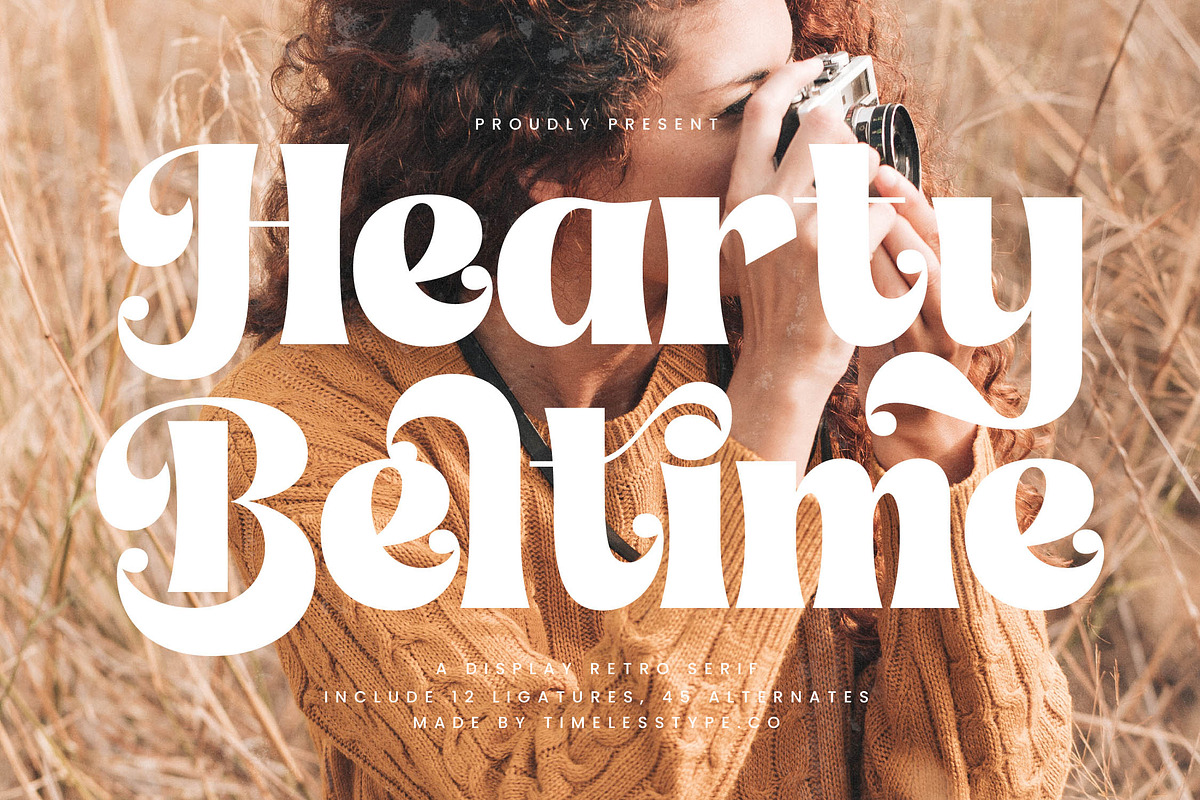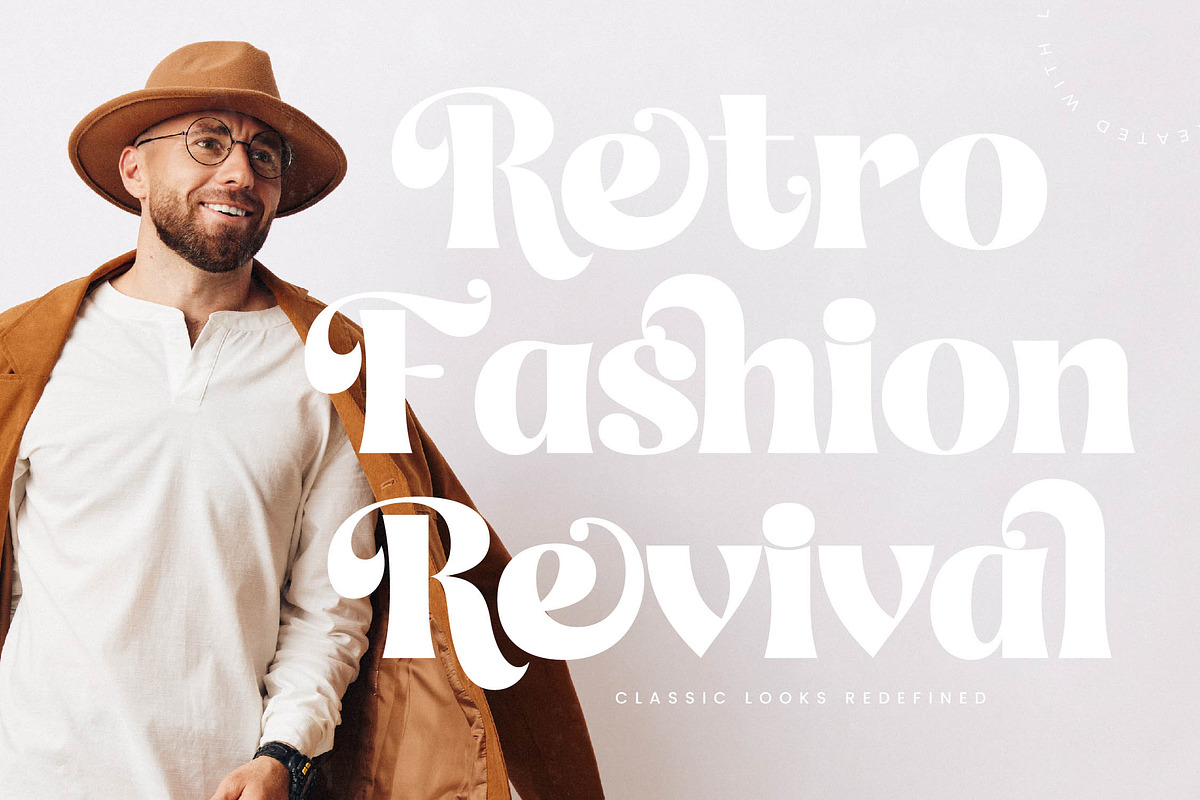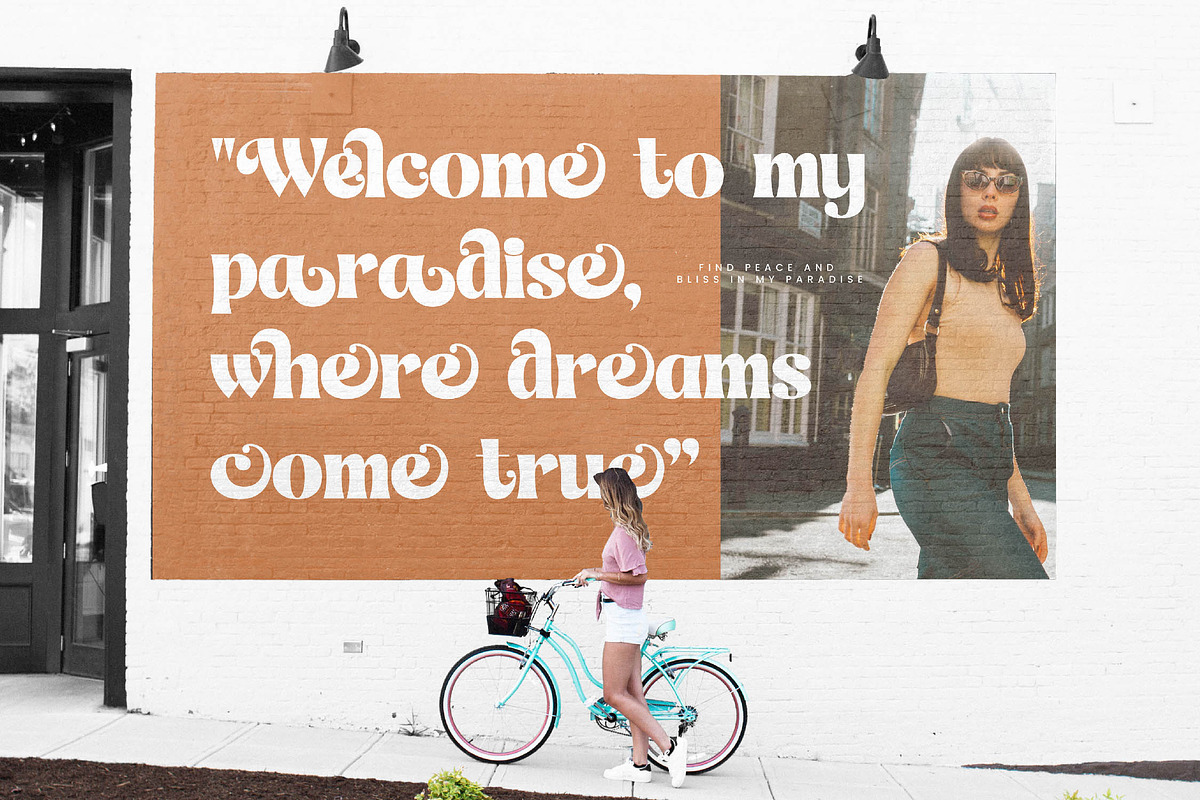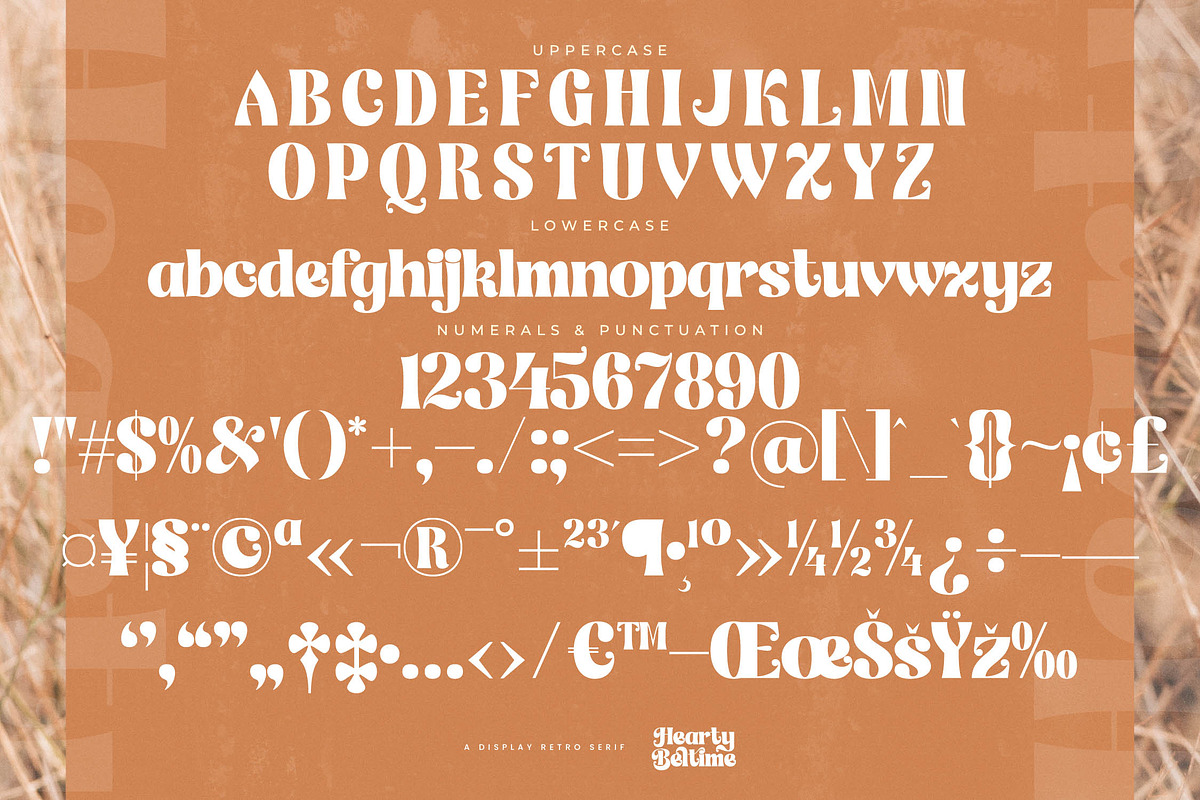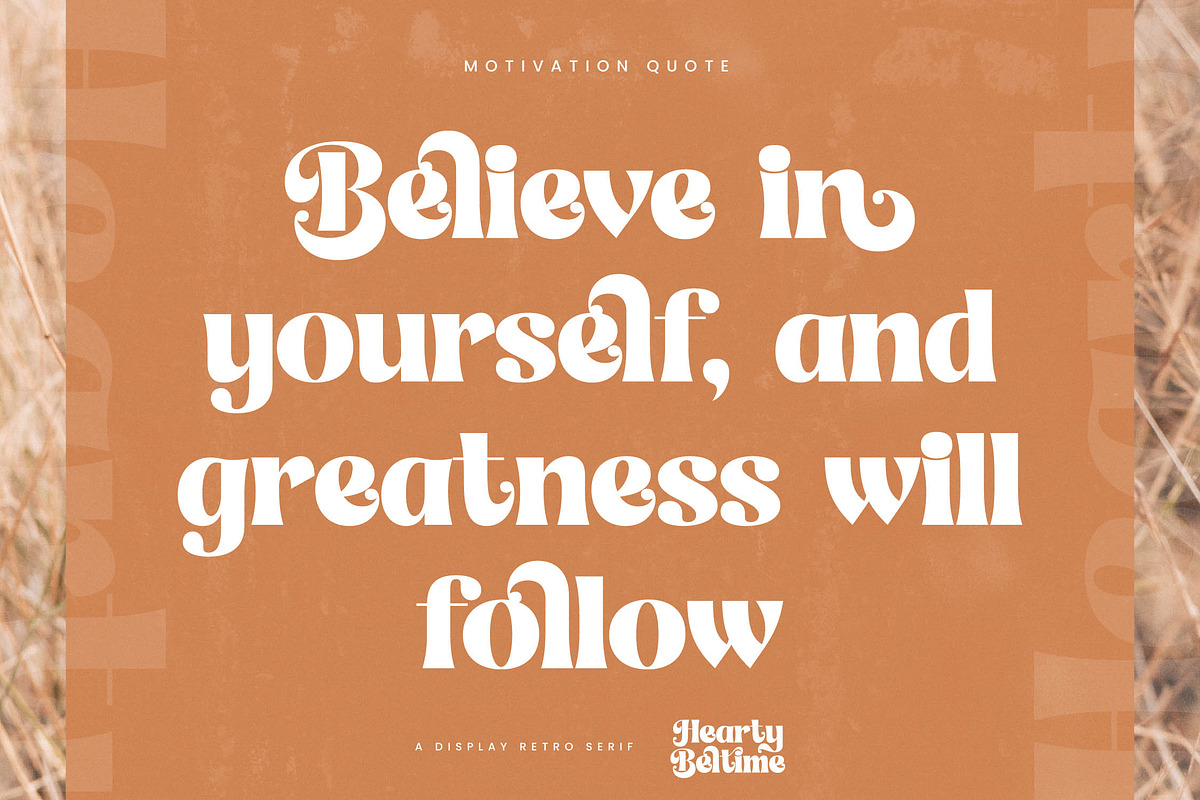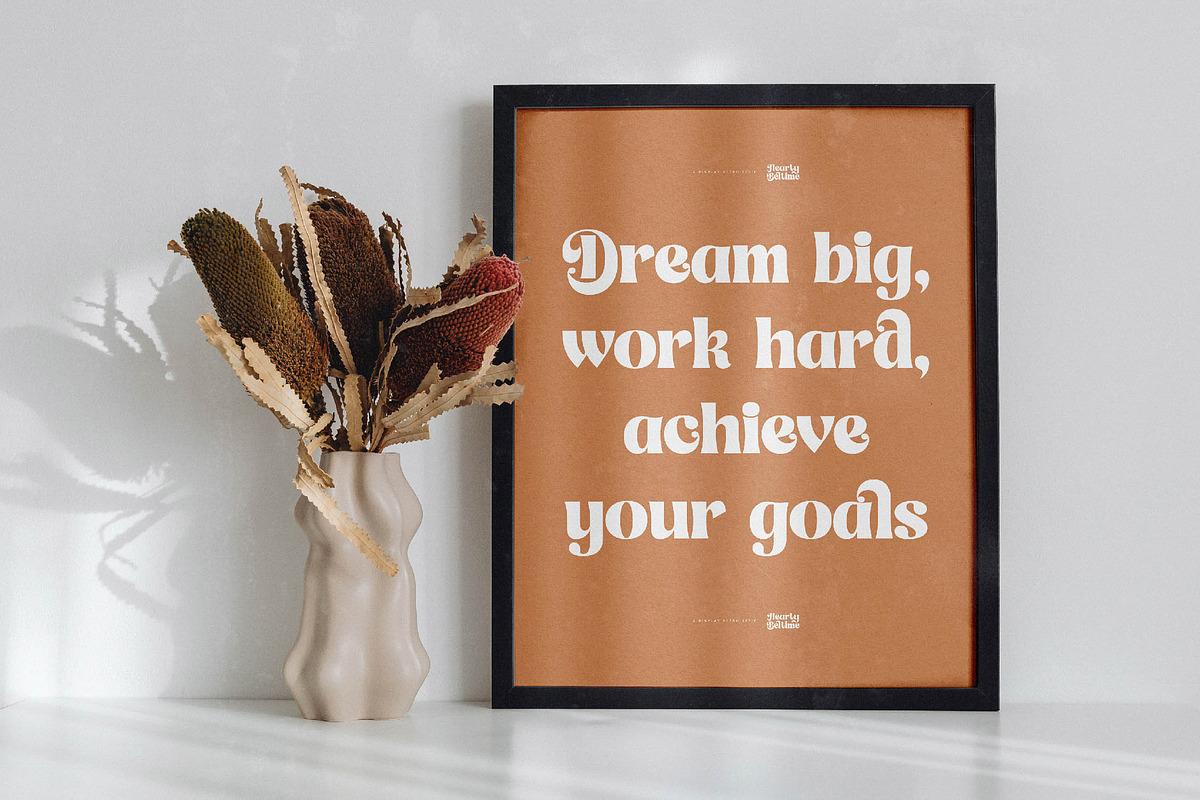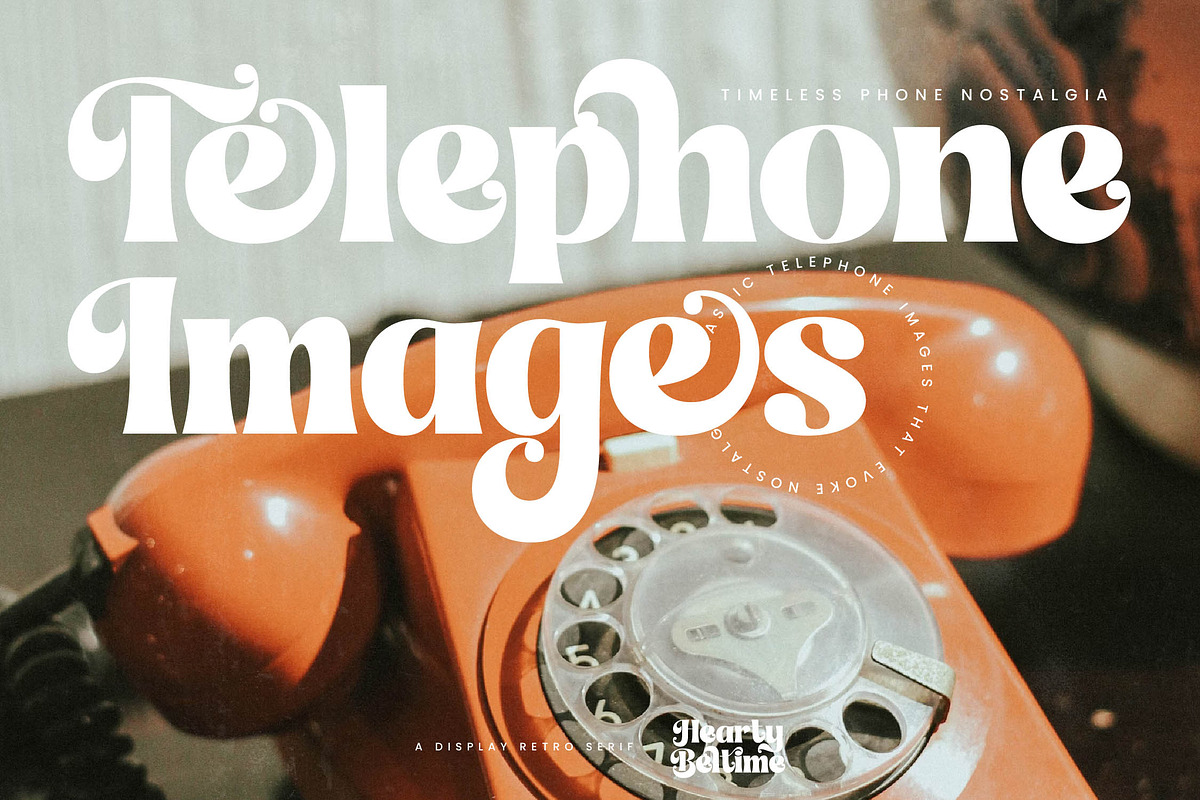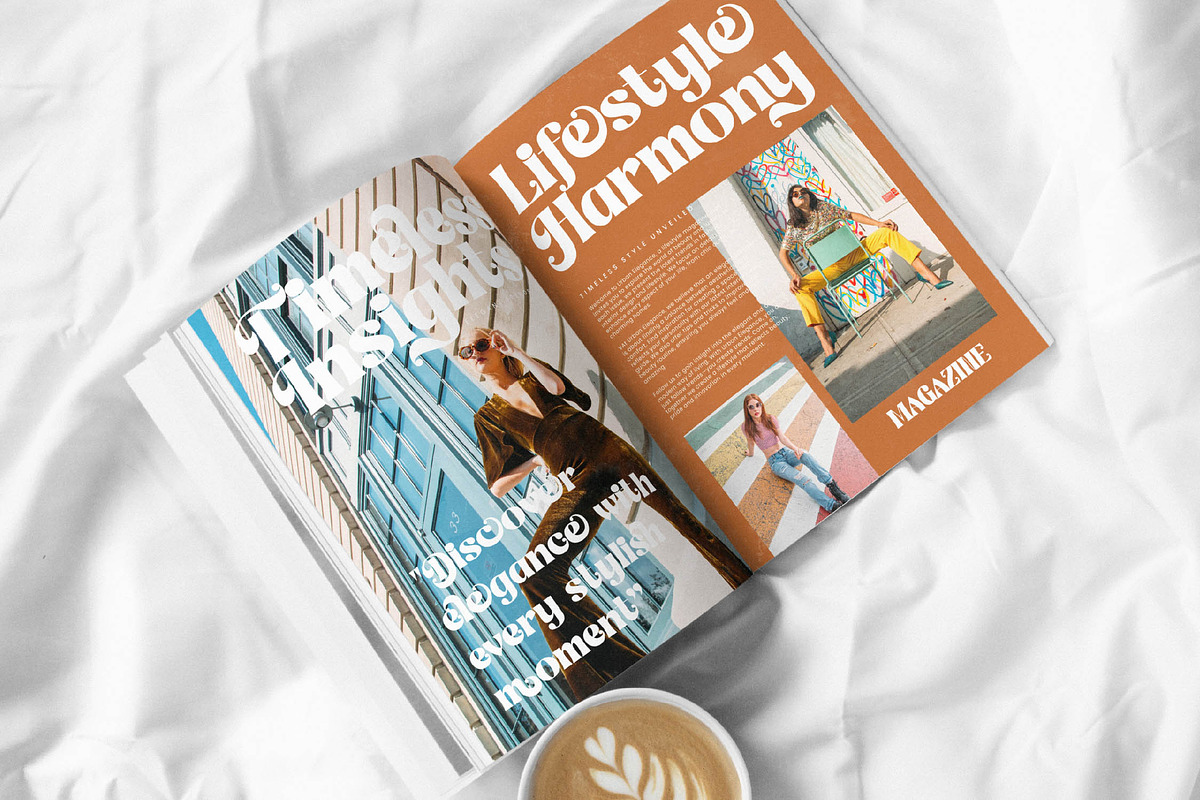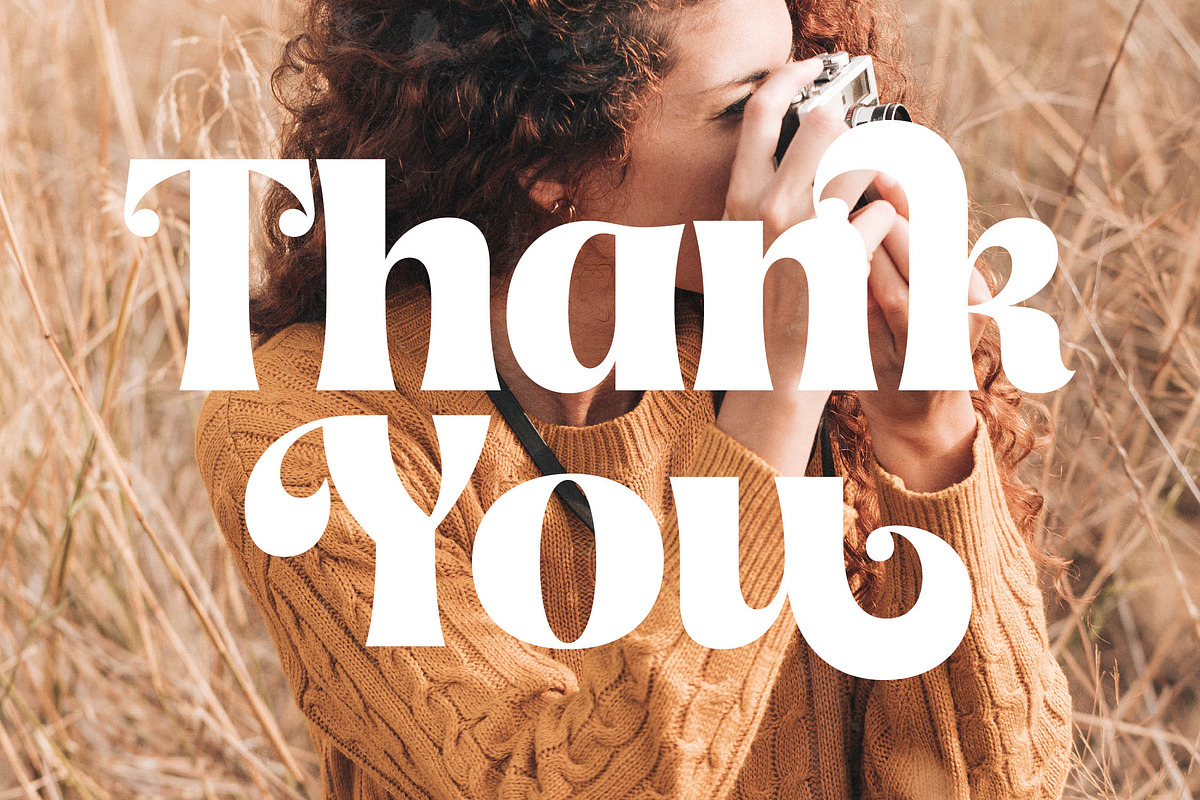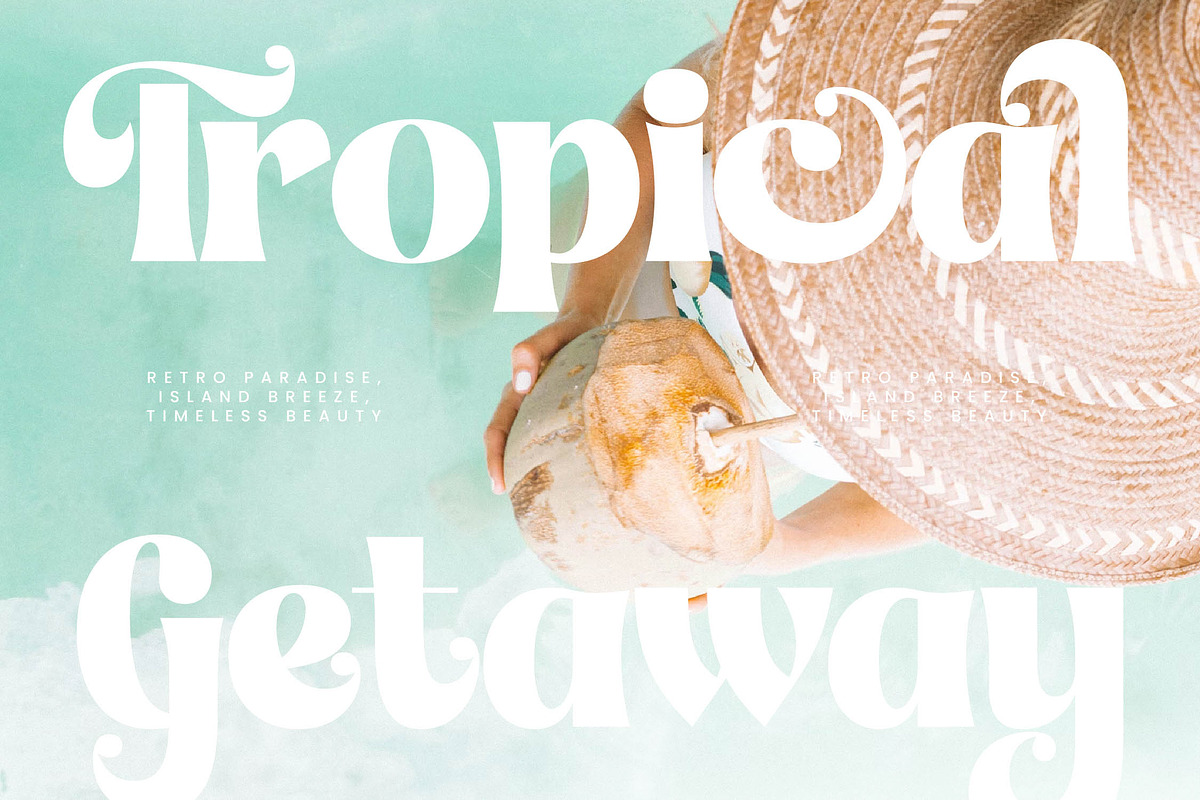
Hearty Beltime Retro Display Font
Hearty Beltime invites you into a world of timeless warmth and curated elegance, where every curve tells a story of sophisticated charm. It is more than just a typeface; it is a visual embrace designed to make your message feel deeply personal and irresistibly inviting.
Drawing inspiration from the golden age of 1970s editorial layouts and classic boutique signage, this font captures a nostalgic atmosphere. Its forms echo the groovy rhythm of a sun-drenched afternoon spent browsing through vintage vinyl and art books.
This modern serif display radiates a unique confidence through its high-contrast serif design and fluid, organic shapes. It serves as an editorial font that balances bold presence with luxury typography to ensure every headline leaves a lasting branding impact.
Staying ahead of the modern serif trend, this typeface answers the call for character-driven typography in a digital world. It fits perfectly within the current landscape of editorial display fonts, providing a bridge between classic heritage and contemporary chic.
Perfectly suited for elevated logo design and high-end branding projects, this font shines across diverse platforms. Whether you are working on premium packaging, a sophisticated editorial spread, dreamy wedding invitations, or cutting-edge fashion lookbooks, it adapts with effortless grace.
This professional package includes a rich set of ligatures and alternates that allow for custom flourishes and artistic swashes. With full multilingual support and a wide range of international characters, it offers a premium toolkit for global design excellence.
- Ligature 12 Alternate 45